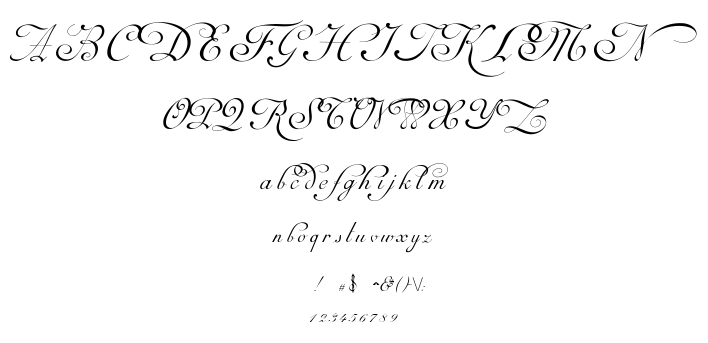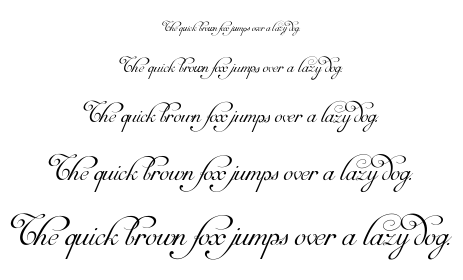
Mirella Script Limited Free Version fontMirella Script is a modern and clean approach of the classic French Bastarde script style. Mirella Script has original letters designed by Iza W and overall creative direction plus core programming by Paulo W.